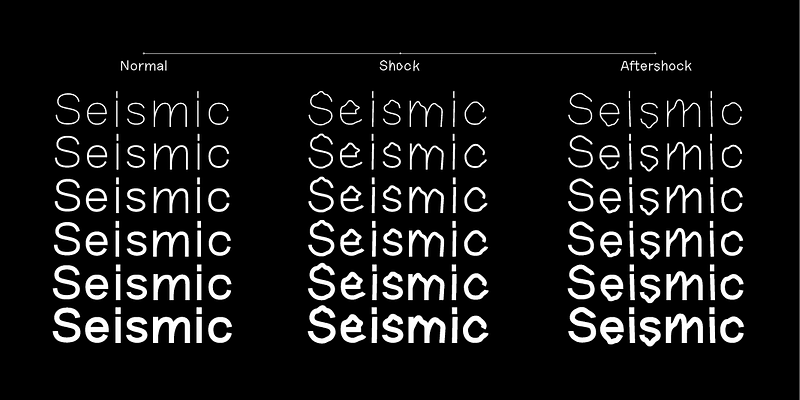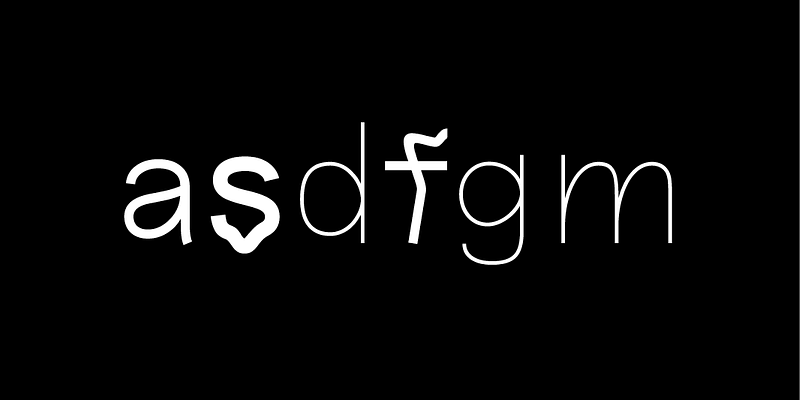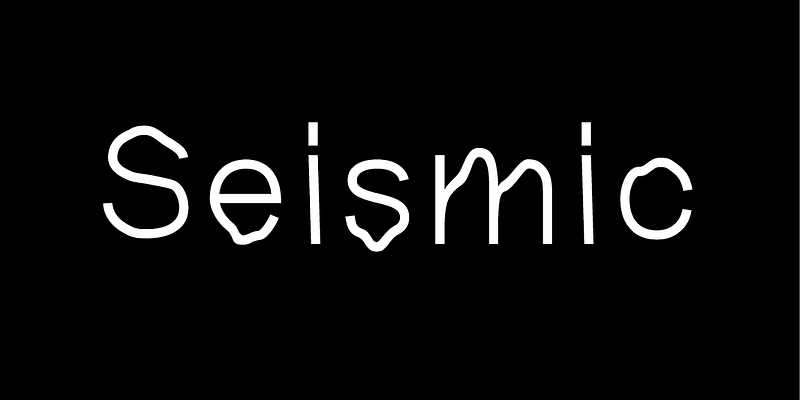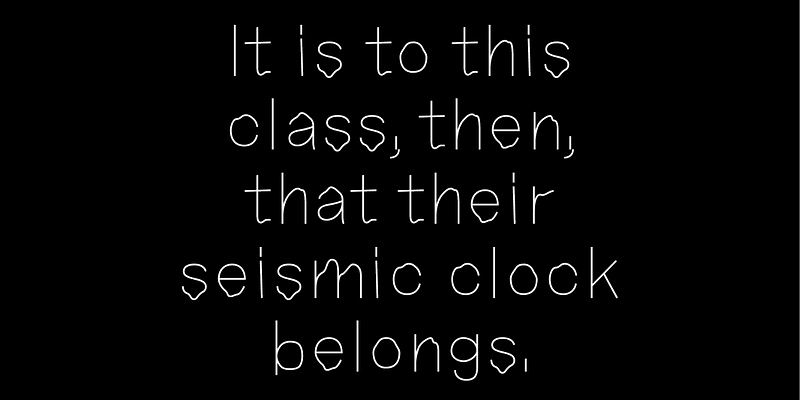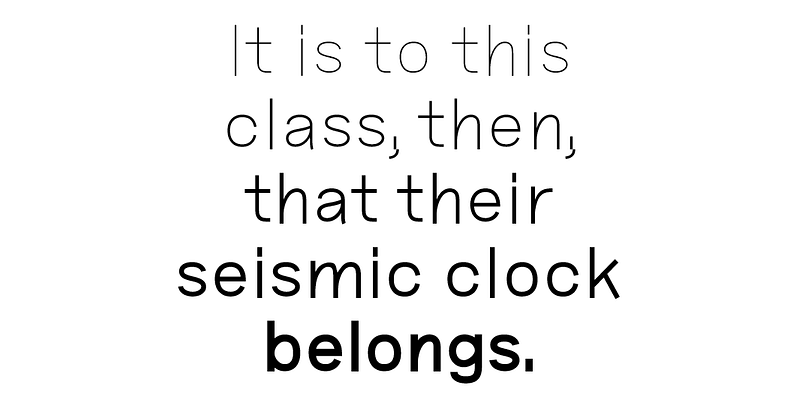
Seismic is an experimental variable typeface that takes the traditional Bengali script in a new direction. The design was originally created for the 2020 Dhaka Art Summit, and based on the event’s ‘seismic movements’ theme - which informed the letters’ beautifully shaky forms. Universal Thirst designed the Bengali, while Fraser Muggeridge studio created Seismic’s Latin version.
Seismic is a modern interpretation of the Bengali script, with shapes left purposefully irregular to mimic the shivering movement of the ground during an earthquake. It’s part of Universal Thirst’s mission to expand the available palette of Indic scripts, and explore new and experimental takes on a more traditional way of drawing letters.
Universal Thirst is a type foundry that specialises in Indic and Latin scripts. It was set up in 2016 by designer and engineer duo Gunnar Vilhjálmsson and Kalapi Gajjar, who draw on their contrasting visual heritage to offer a unique, dual perspective on type.